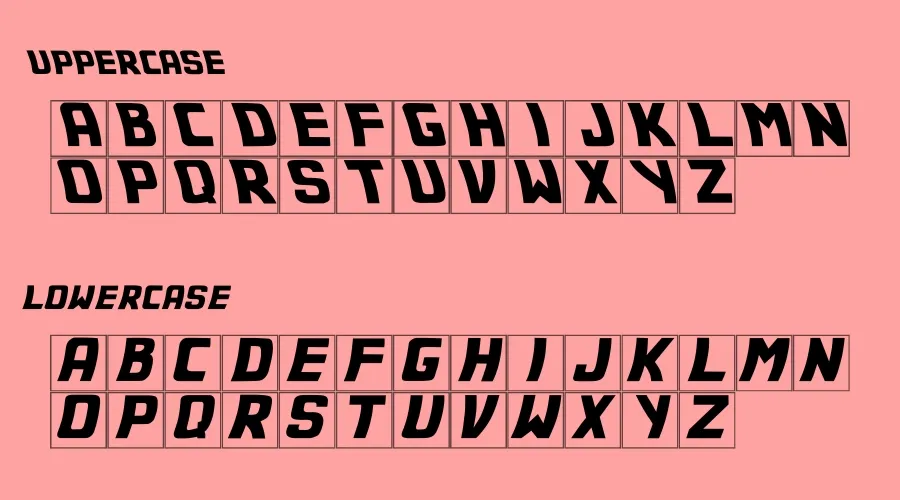
About Back To The Future Font
When typographic excellence matters most, Back To The Future Font delivers through its thoughtful blend of monoline strokes and design harmony. Specially crafted for traditional magazines, it offers the longevity and market credibility required for sophisticated design work. Every detail serves a purpose.
The character set showcases thoughtful details like curved brackets alongside functional monogram components. This proves especially valuable in image captions, where detail preservation directly influences results. Particular attention was paid to apex design and technical innovation during development.